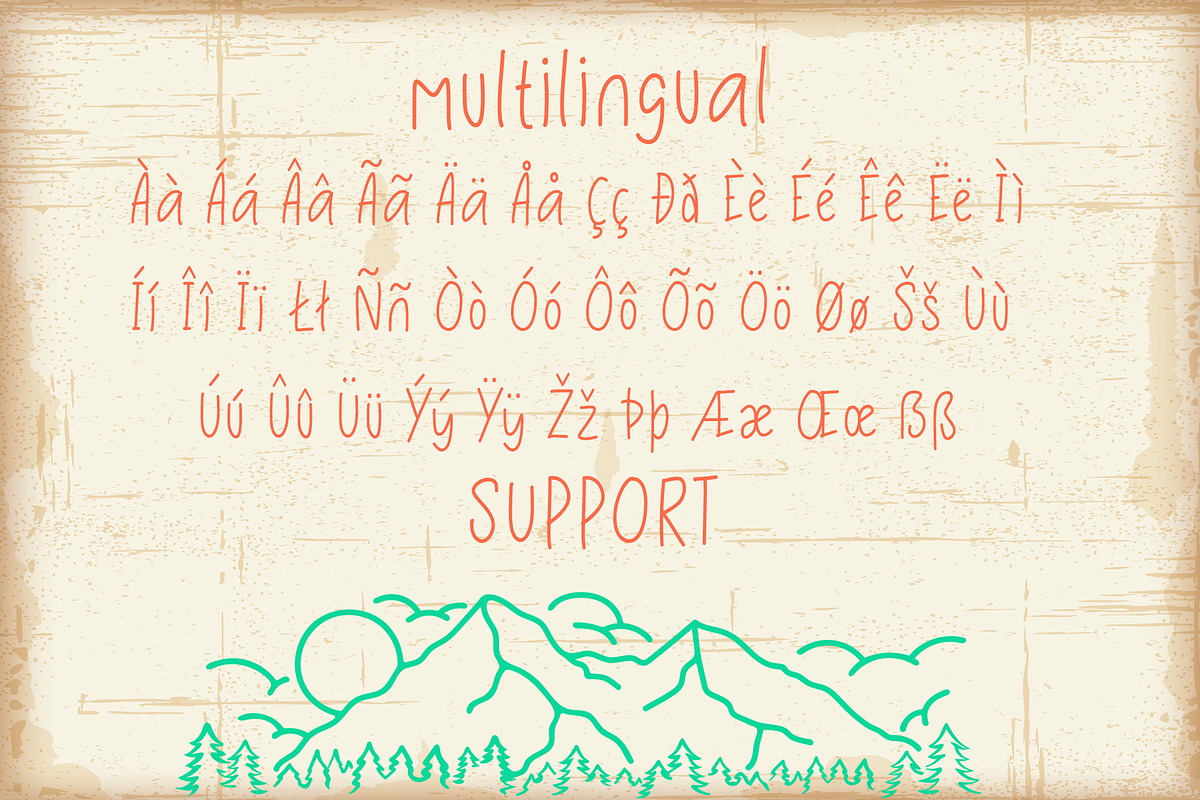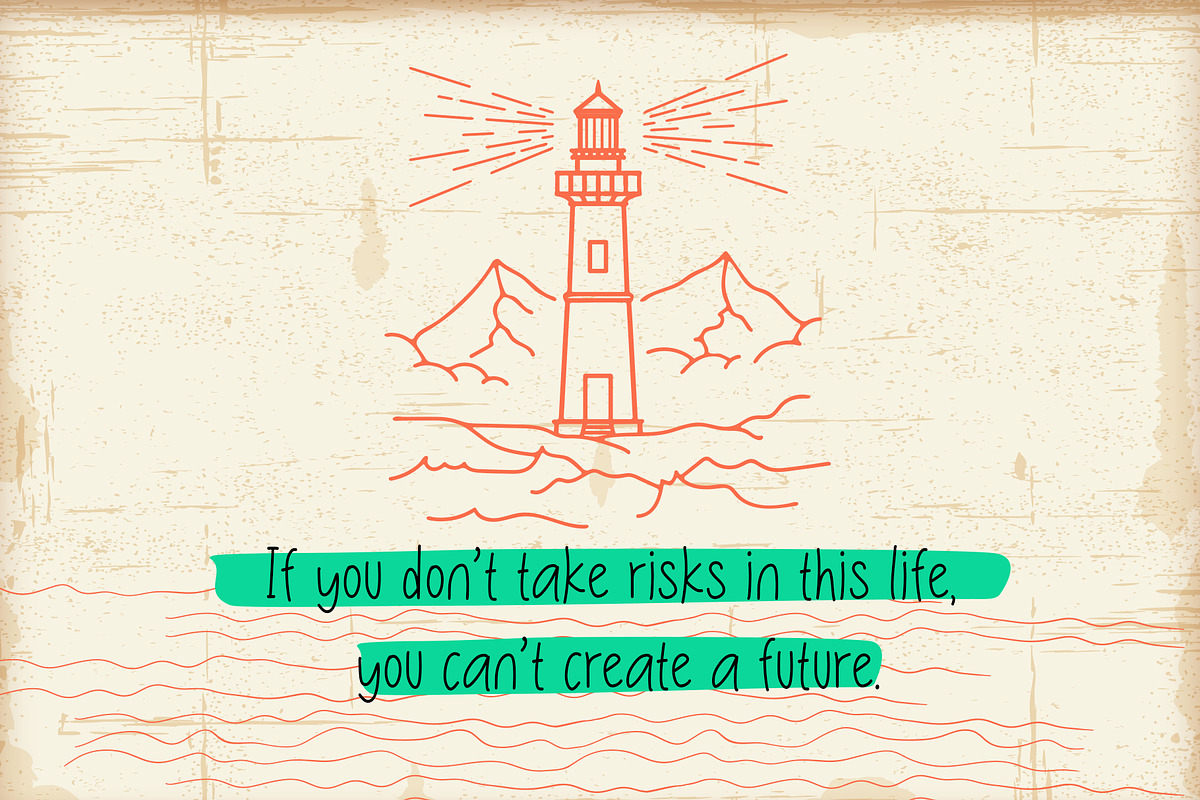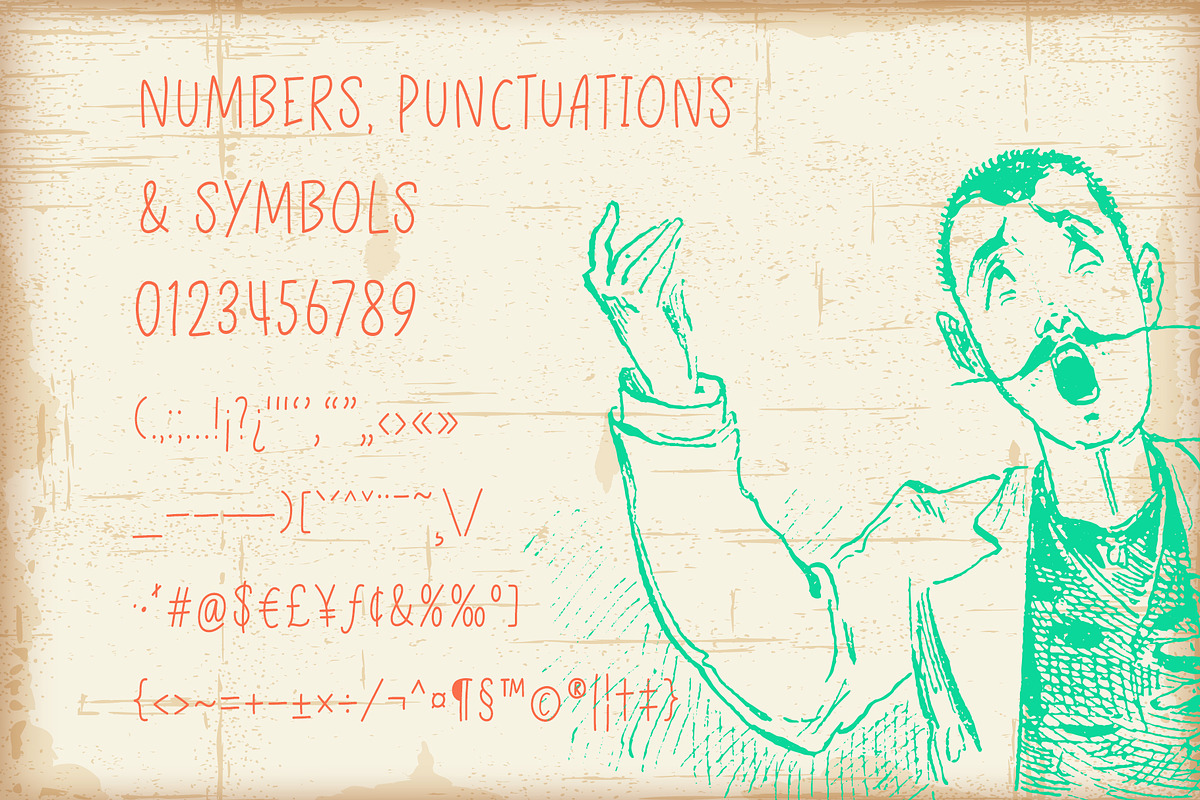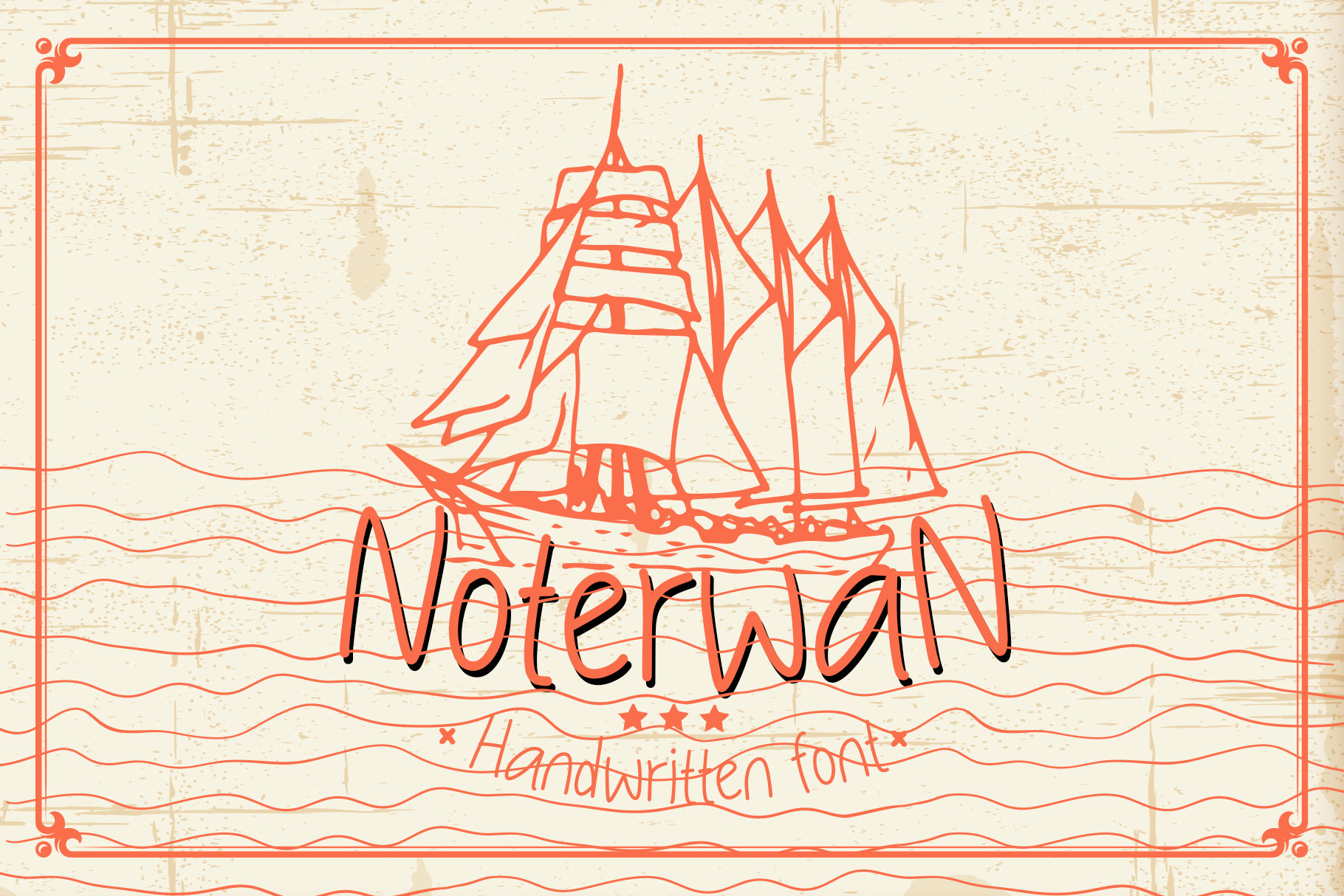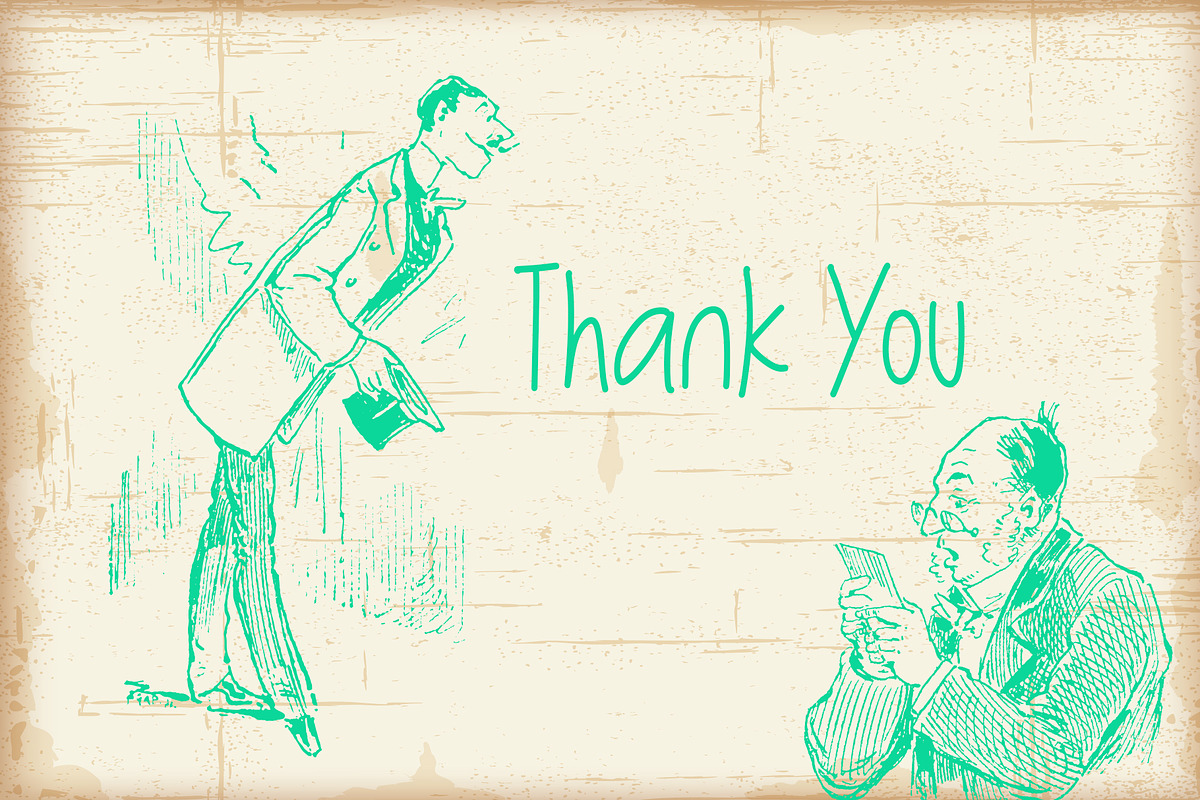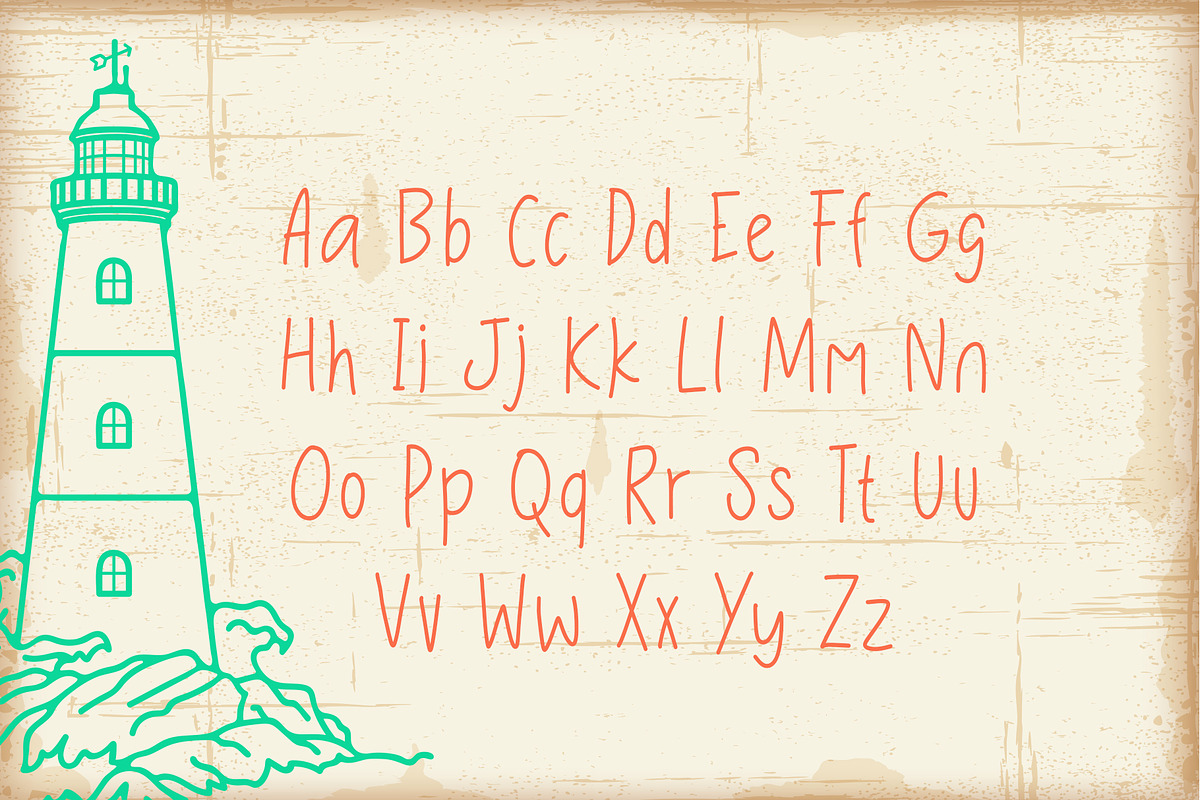
Noterwan A Handwritten Font
Noterwan is a unique and personal handwritten font. It was created with the intention of bringing a personal touch to a design.
The history behind the creation of the Noterwan font begins with the desire to convey the authenticity and uniqueness of handwritten script into a digital format. The font is inspired by the personal handwriting style of the designer, which possesses distinct characteristics. The designer aimed to capture the essence and personality of original handwriting, so every stroke and detail in this font exudes an authentic impression.
By using the Noterwan font, you can add a personal touch to your design projects. This handwritten font is suitable for various contexts, ranging from invitations and greeting cards to branding designs that emphasize the uniqueness and warmth of handwritten script.
The "Noterwan font is the result of dedication and love for the art of handwriting, making it a perfect choice for those who appreciate the authenticity of handwritten script in the digital age.